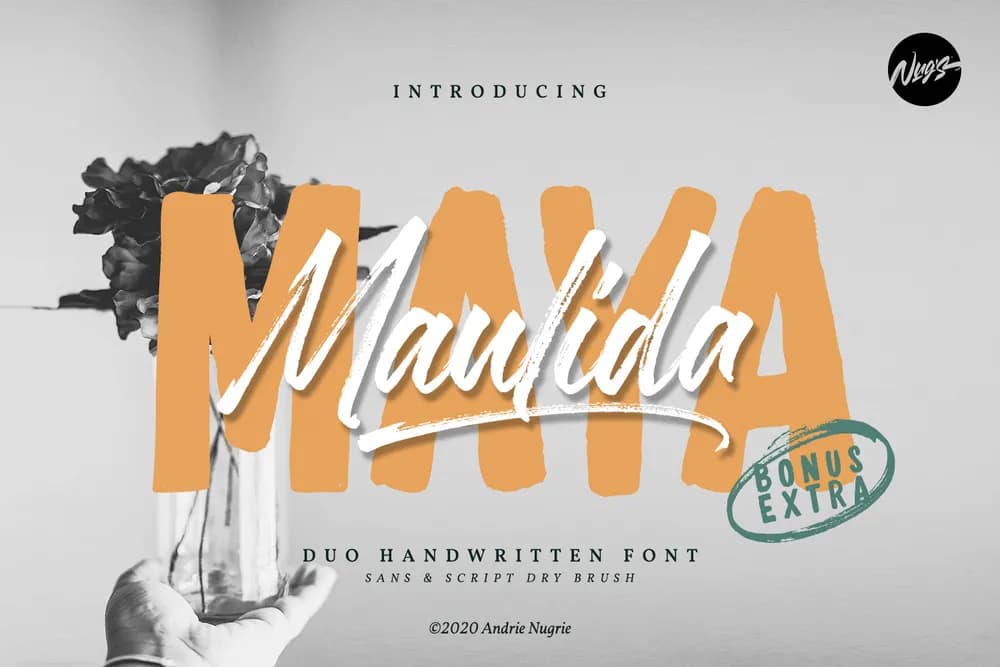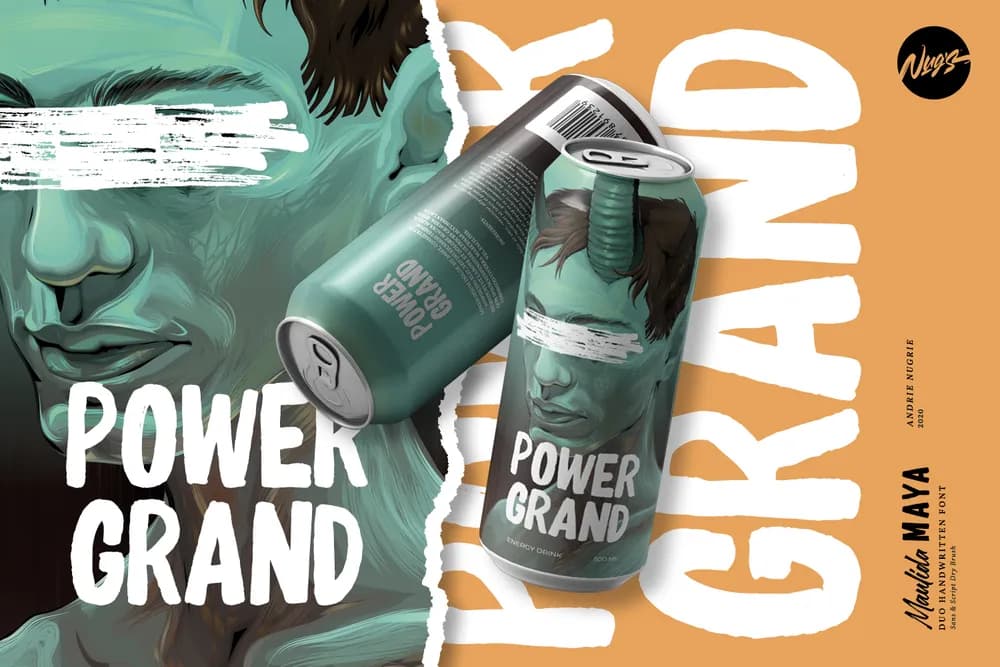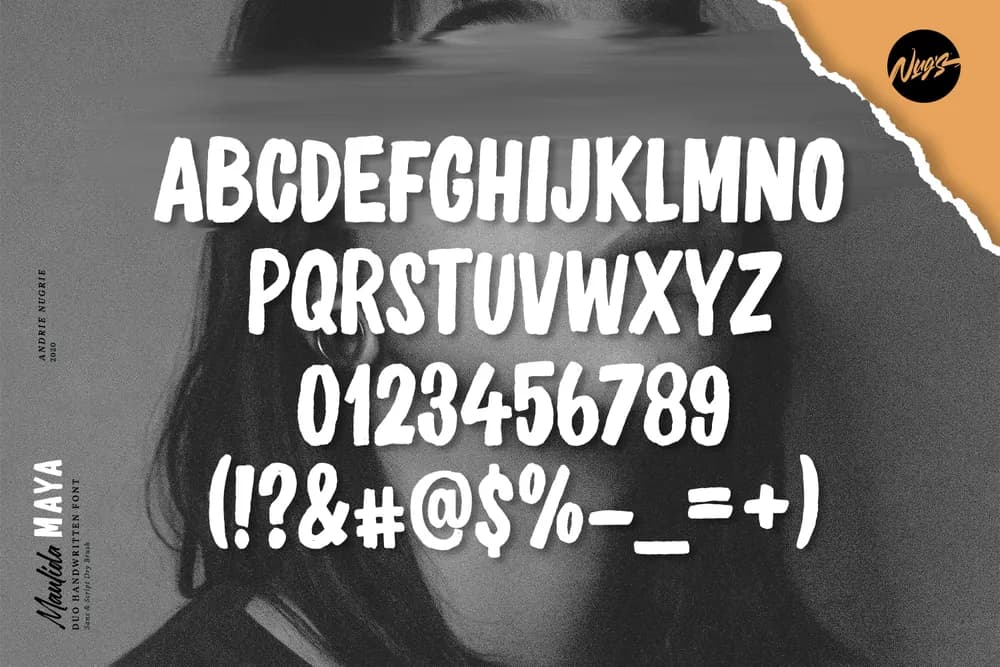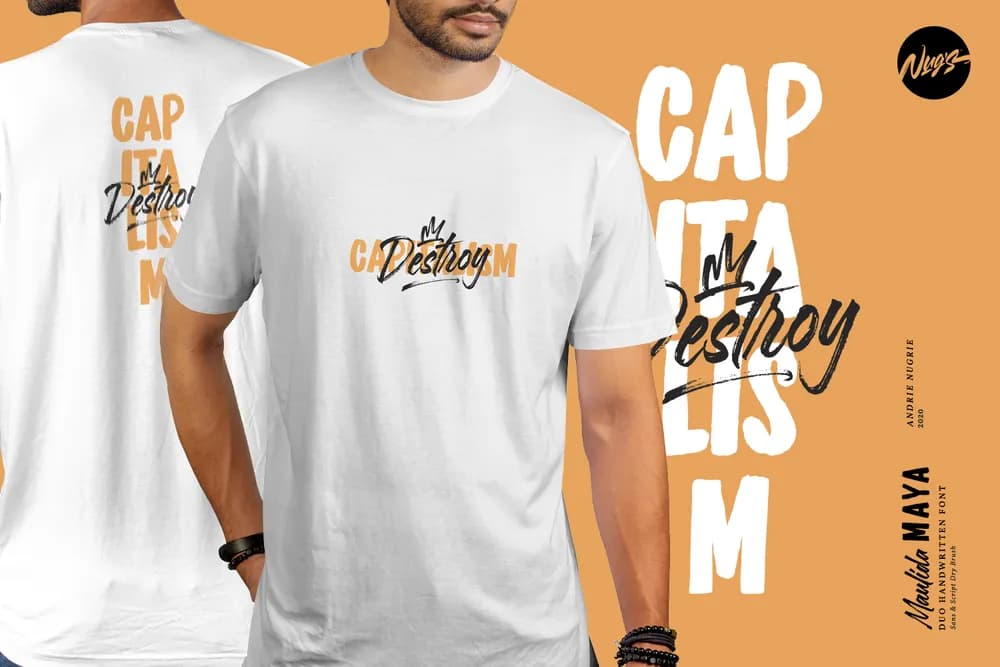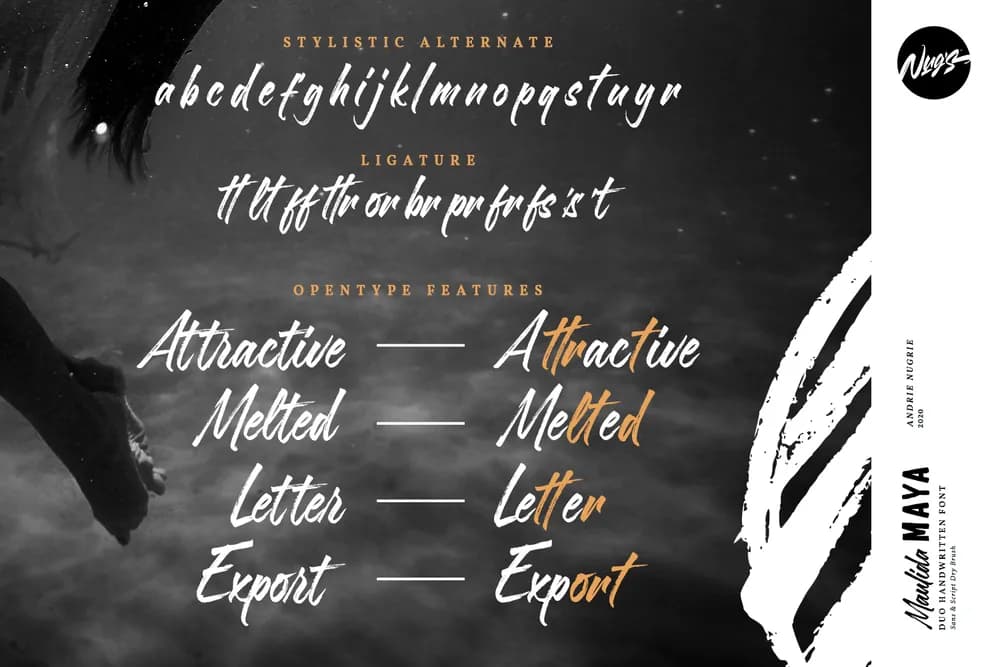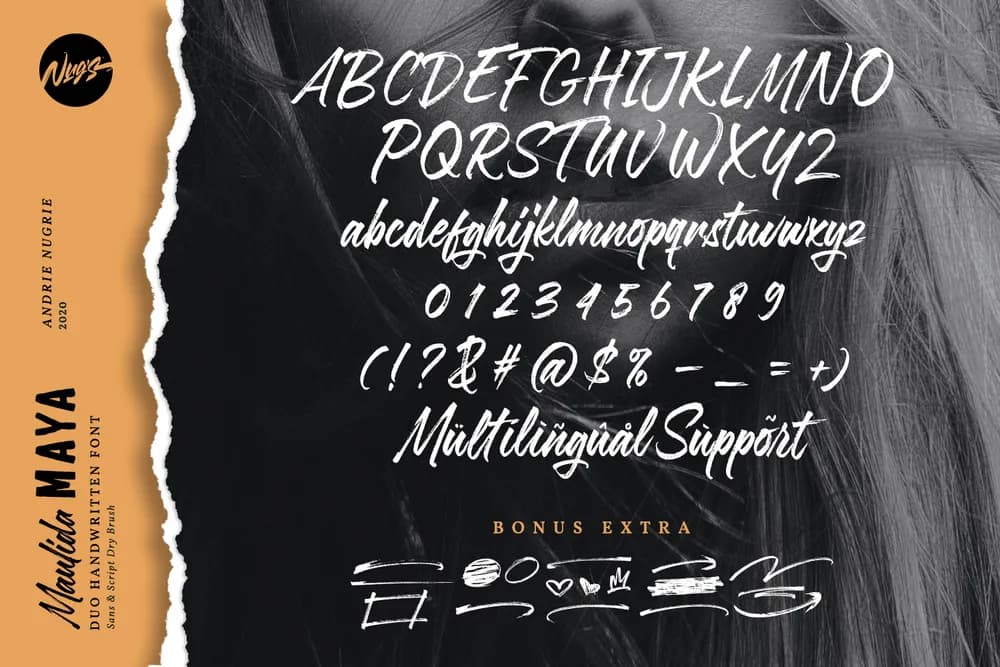
Introducing Maulida MAYA With beautiful natural dry brush strokes, This font perfect for signature, branding, wedding, fashion, photography title, poster, social media, ad banner, book cover, packaging, handwritten quotes, greeting cards, and advertising. All fonts containing upper & lowercase characters, numerals, punctuation with otf and ttf format sans and script handwritten font š šššš®š«šš¬ : ā Standard ligatures ā Alternates ā Uppercase & lowercase letters ā Font Duo (Sans & Script Font) ā Multilingual support ā Bonus Extra š šØš«š¦šš : OTF, TTF, and WOFF.